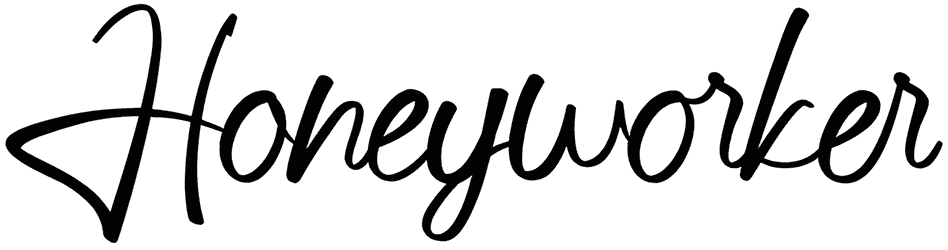
Honeyworker Font
Now it’s time to be chic and classic with a hand lettering outward. Honeyworker is a handwritten font with smooth lines and a graceful and handsome mood. Even without numbers and punctuation, this sweet font can work well in many formal or nonformal items such as invitation cards, fashion designs, handwritten quotes, and suchlike.